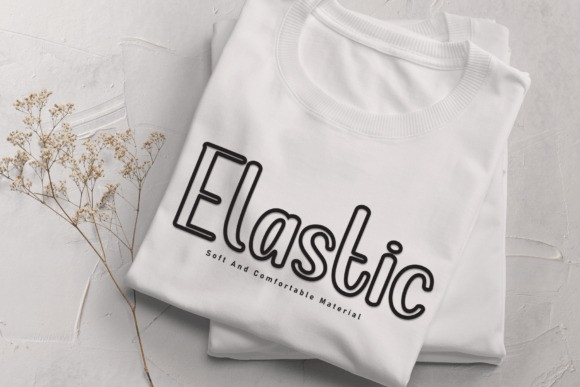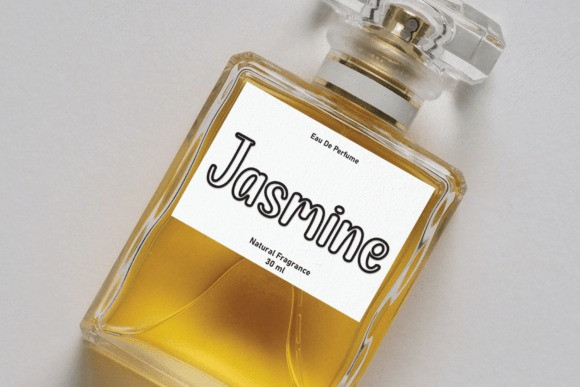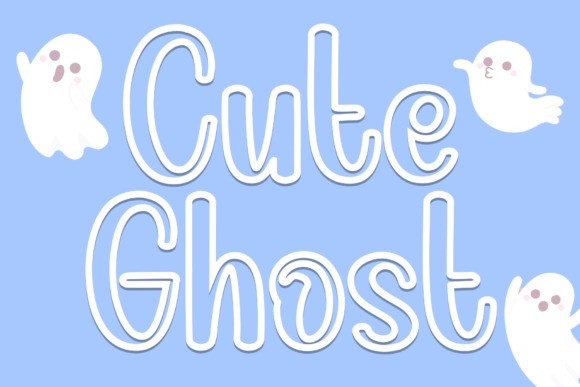
Cute Ghost Font
Cute Ghost Font is a sweet and friendly handwritten font. Cute and versatile, this font is ideal for writing wedding invitations, cards, or any other design that might need a fun touch!